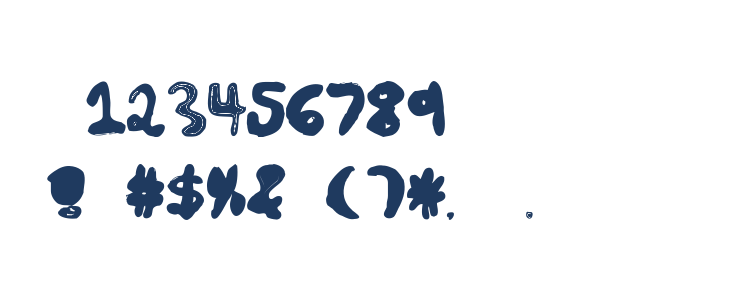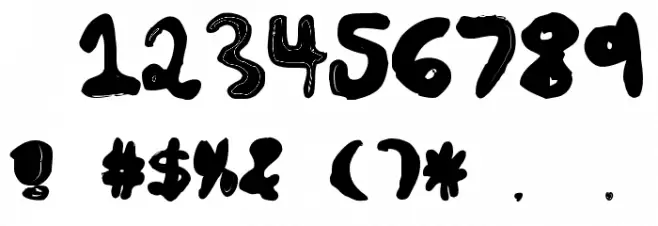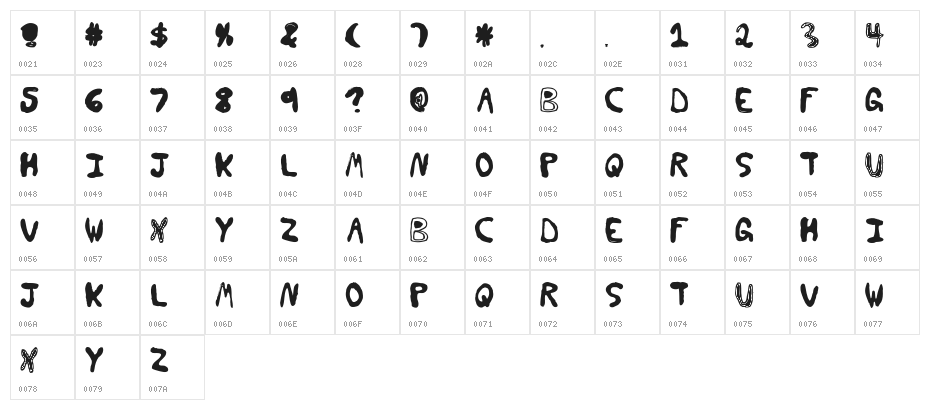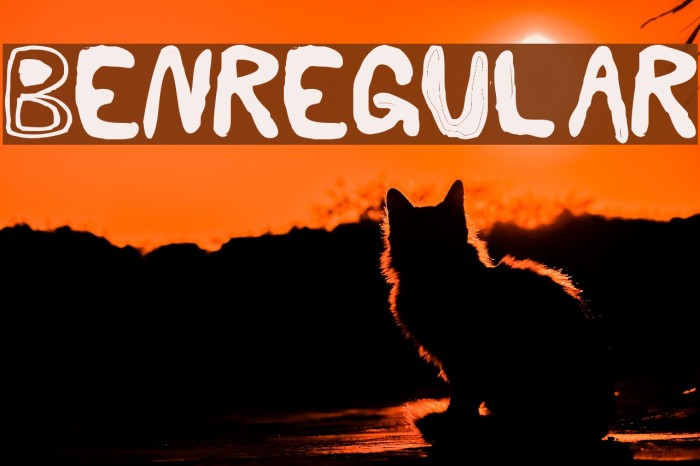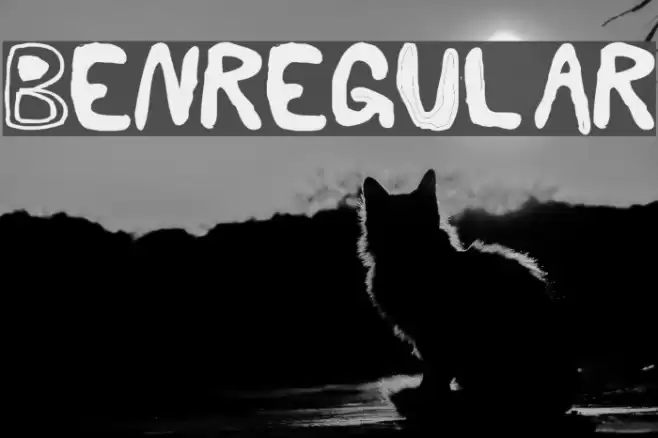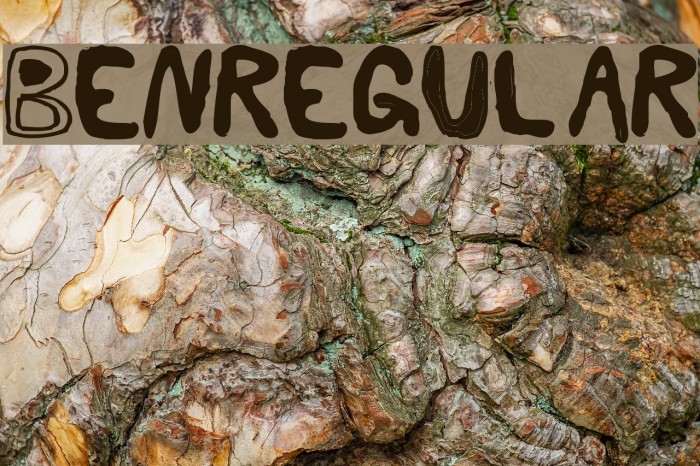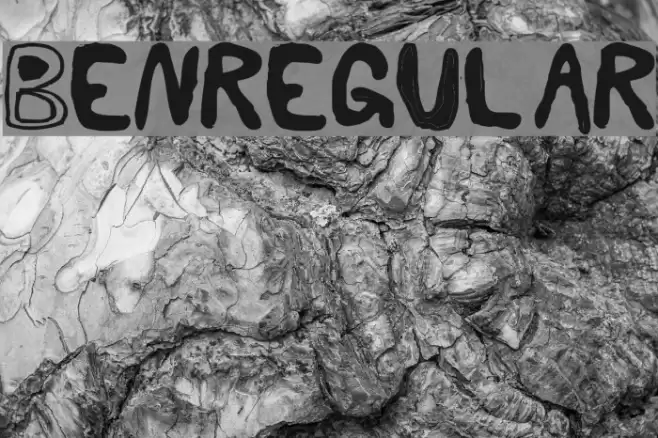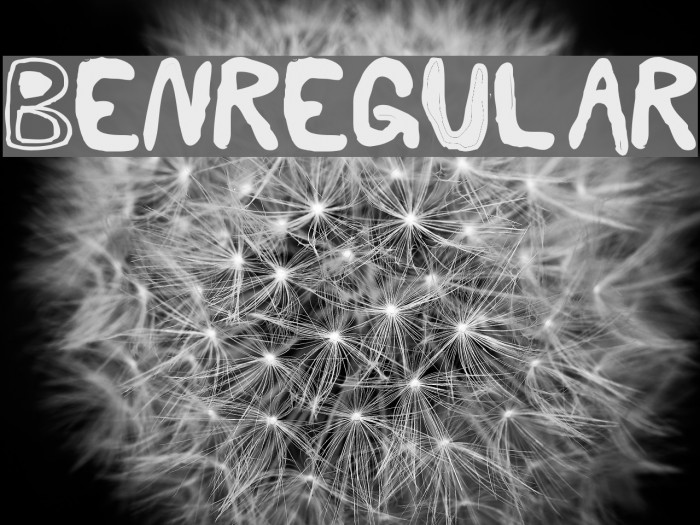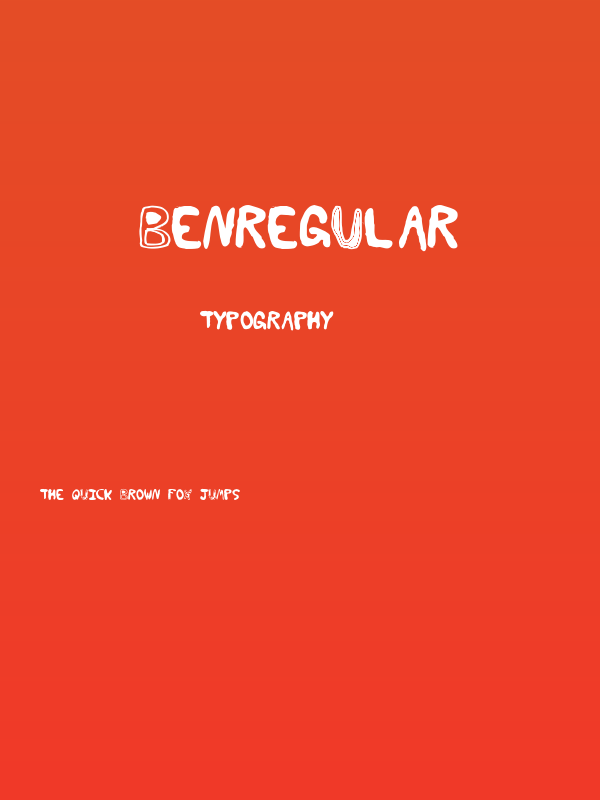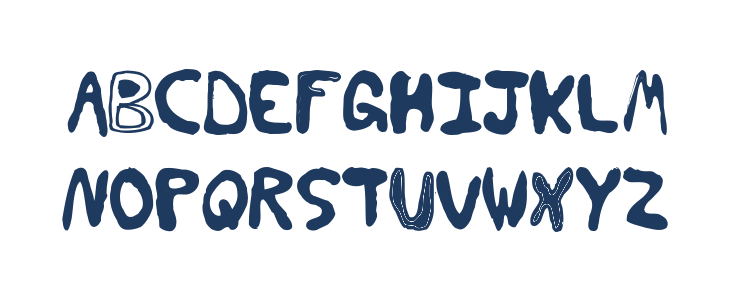
BenRegular Font
BenRegular Description
This font features a bold, playful style with a hand-drawn appearance. The characters are thick and rounded, giving them a friendly and approachable look. The strokes are uneven, adding to the casual and whimsical feel. The uppercase and lowercase letters maintain a consistent style, with a slightly irregular baseline that enhances the informal aesthetic. Numbers and special characters follow the same design principles, ensuring a cohesive look across all glyphs. The font's unique character makes it suitable for creative and informal projects.